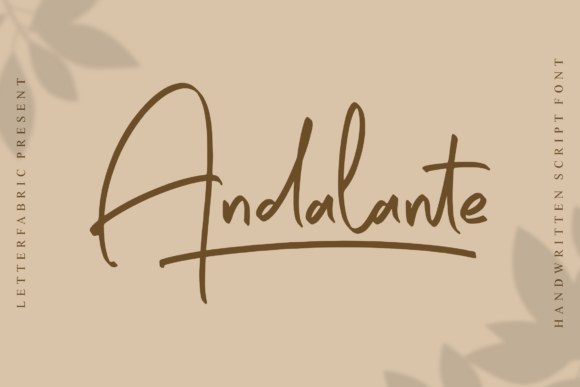
Step into the world of Andalante, a captivating script font family that will ignite your creativity and elevate your designs to new heights. Crafted by the skilled hands of Letterfabric, this font duo is not just a collection of letters, but an artistic expression waiting to be unleashed upon your next project.
Andalante seamlessly blends the timeless elegance of calligraphy with a modern twist, resulting in a font that is both classic and contemporary. Its graceful curves and delicate swashes add a personal touch to your designs, making them stand out from the mundane. Whether it's a logo that demands attention, a branding project that speaks volumes, or a homeware design that exudes warmth, Andalante is your perfect companion.
Unleash the beauty of Andalante on your product packaging, transforming ordinary items into objects of desire. Create mugs, quotes, and posters that capture the essence of your brand, leaving an unforgettable impression on your audience. Let your shopping bags and t-shirts speak volumes with Andalante's charm, turning everyday items into walking works of art.
Dive into the world of book covers, name cards, invitation cards, and greeting cards, where Andalante's enchanting script weaves a tale of elegance and sophistication. Add a touch of magic to your labels, making them more than just identification tags. Use Andalante as a watermark, leaving an indelible mark of creativity on your designs.
Andalante is the perfect choice for special events, adding a touch of grace and charm to every moment. Its versatility extends to photography, where it enhances your images with a touch of timeless beauty. And for all your other lovely projects that crave a dash of elegance, Andalante is your muse.